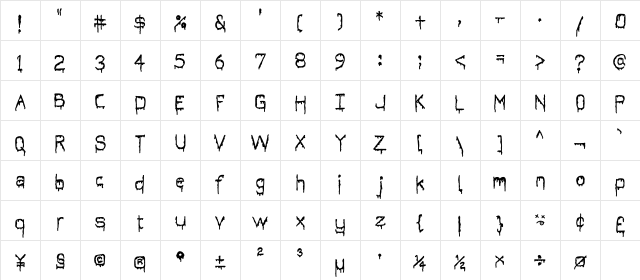
Complete It's Dripping ~ Medium glyph index. Displaying only characters natively supported by It's Dripping ~ Medium font.
It's Dripping ~ is a composed and adaptable typeface that performs quietly and consistently across a wide range of design contexts.